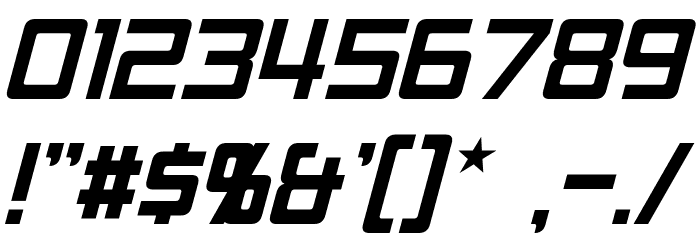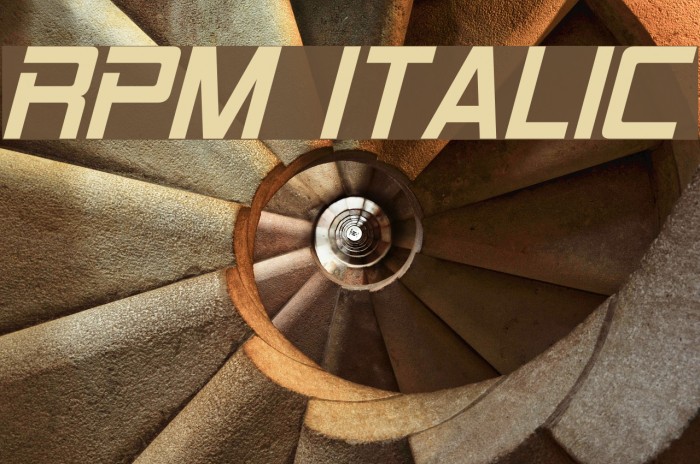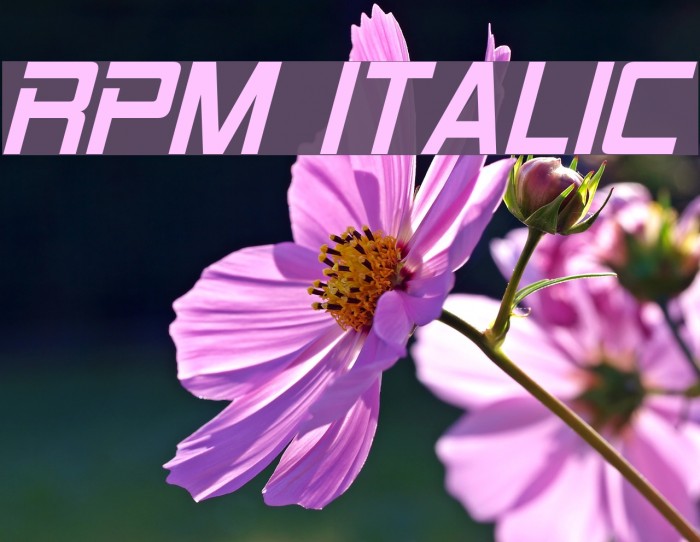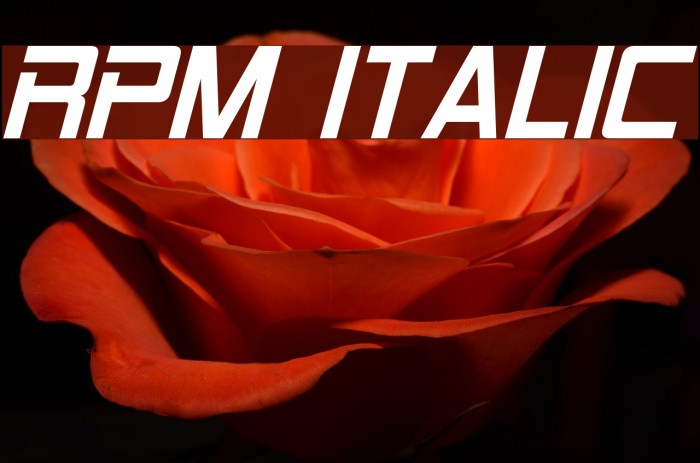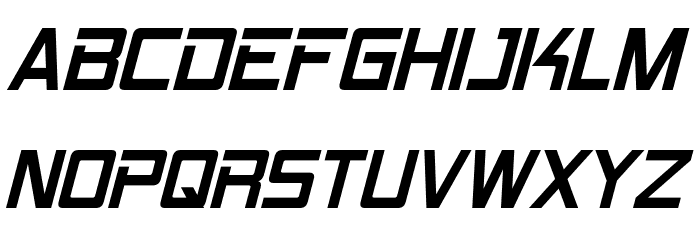
RPM Italic Font
RPM Italic Description
This font features a dynamic and modern italic style with sharp, angular edges that convey a sense of speed and movement. The uppercase and lowercase letters maintain a consistent slant, enhancing the italicized effect. The numerals are designed with a similar angularity, ensuring uniformity across all characters. Special characters are crafted with the same attention to detail, making them seamlessly integrate with the rest of the font. The overall design is bold and impactful, suitable for projects that require a contemporary and energetic look.
| Proposed Projects | Ideal for sports branding, automotive advertisements, and dynamic logo designs. |